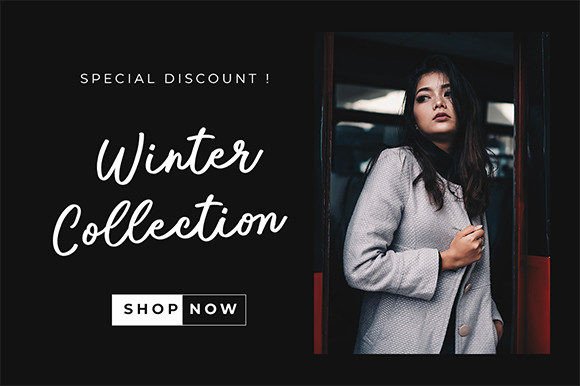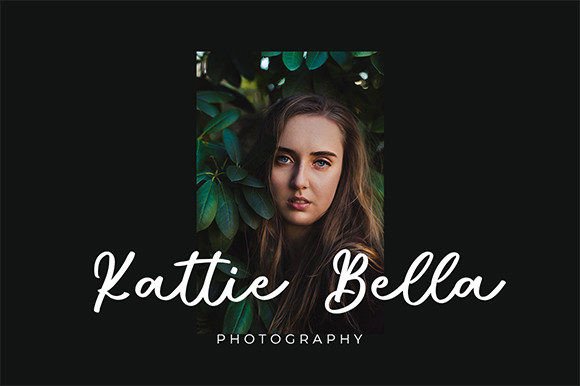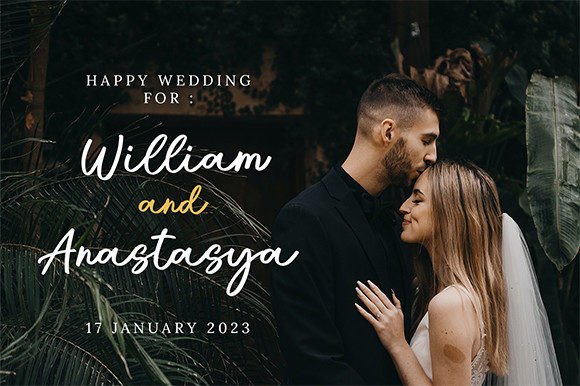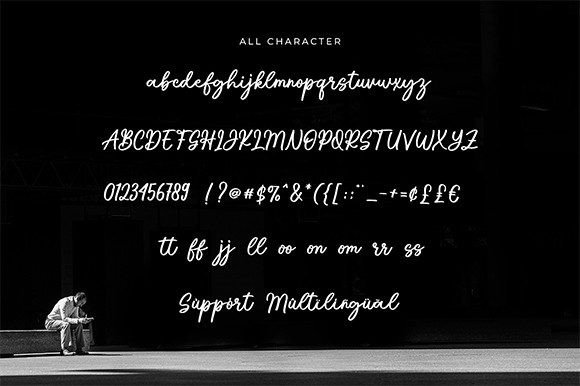
Introduction to Radiant Signature Font
Radiant Signature is a stylish handwritten font masterfully crafted to become a true favorite.
Contemporary and fresh, it is perfect for any design you wish to create Add it to your creative projects and make them outstanding.